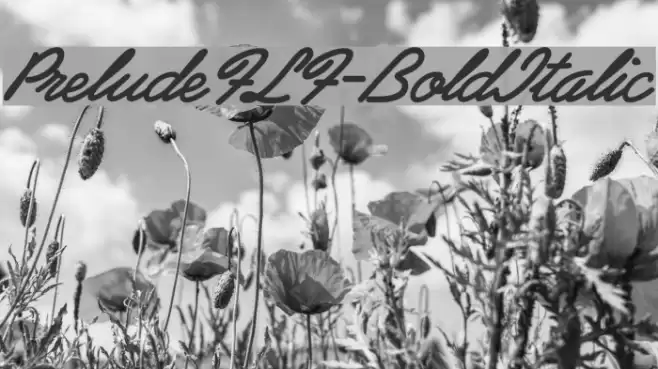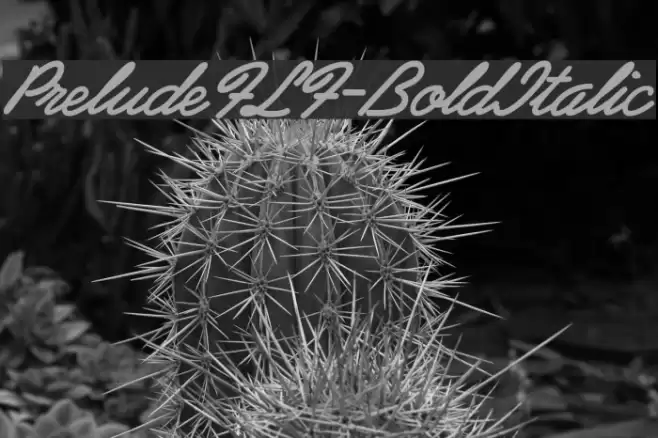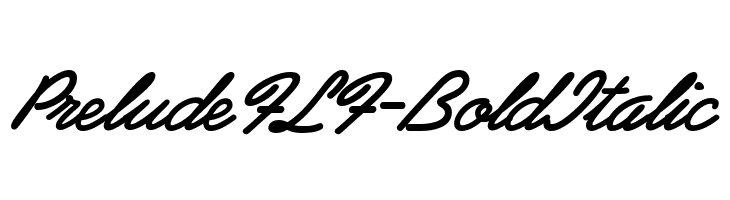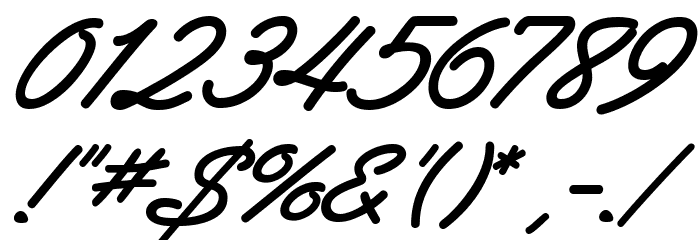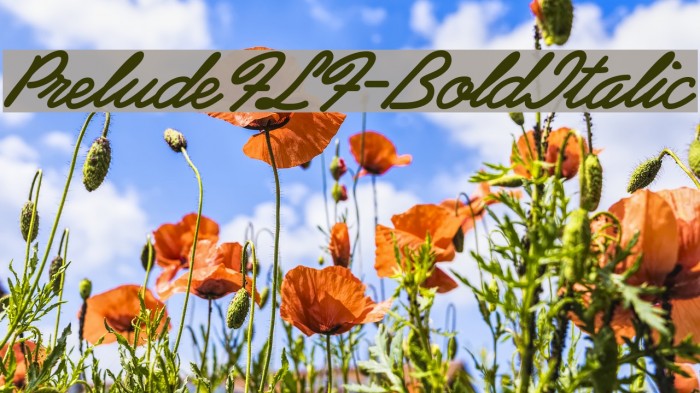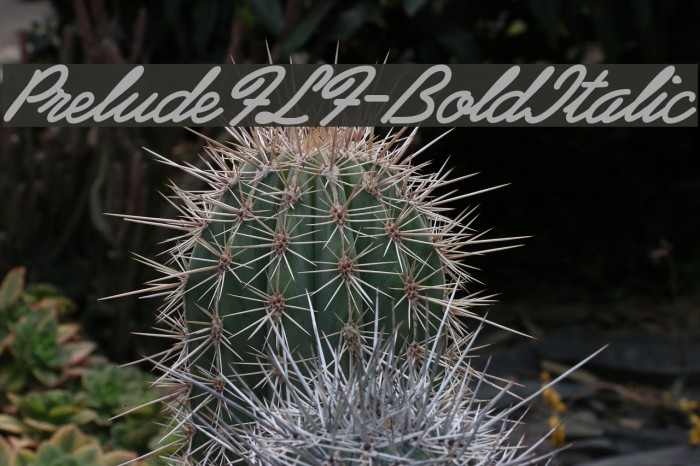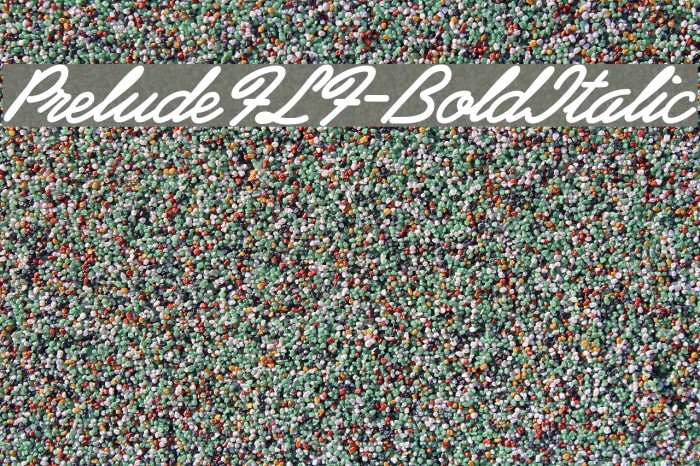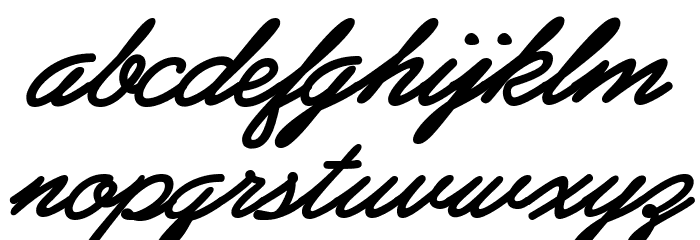
PreludeFLF-BoldItalic Font
PreludeFLF-BoldItalic Description
This font features a dynamic and fluid script style, characterized by its bold and italicized appearance. The letters are interconnected with smooth, flowing strokes, giving it a handwritten feel. The uppercase letters maintain a consistent height, while the lowercase letters exhibit a slight slant, enhancing the cursive effect. Numbers and special characters are designed to match the overall aesthetic, ensuring a cohesive look. The font's bold weight and italic slant make it stand out, suitable for creating eye-catching designs.
A bold, italic script font with a fluid, handwritten style from Calligraphic fonts.
- Proposed Projects: Ideal for wedding invitations, greeting cards, branding, and logo design where a personal touch is desired.
- Use Case: Logos, Headlines, Invitations